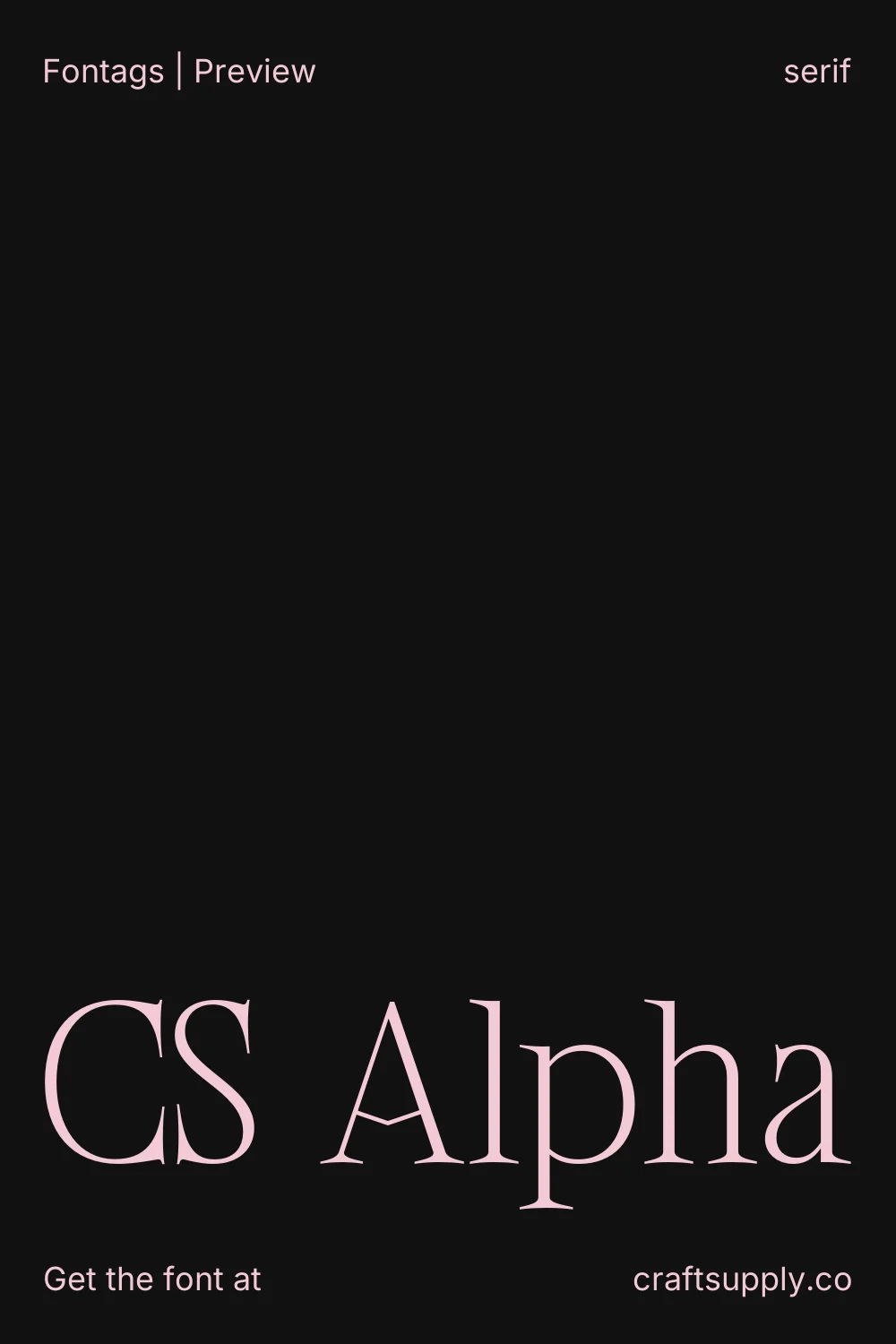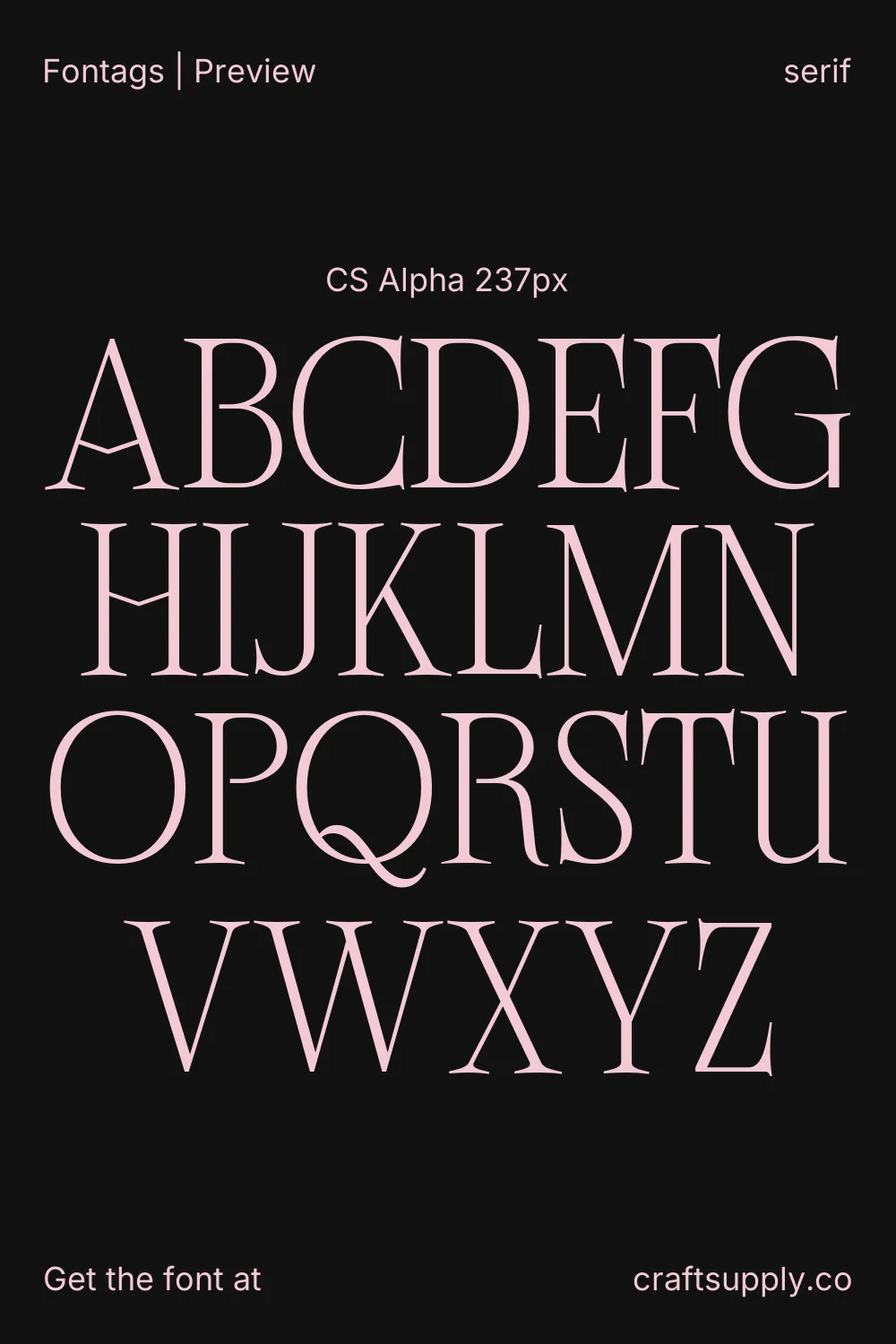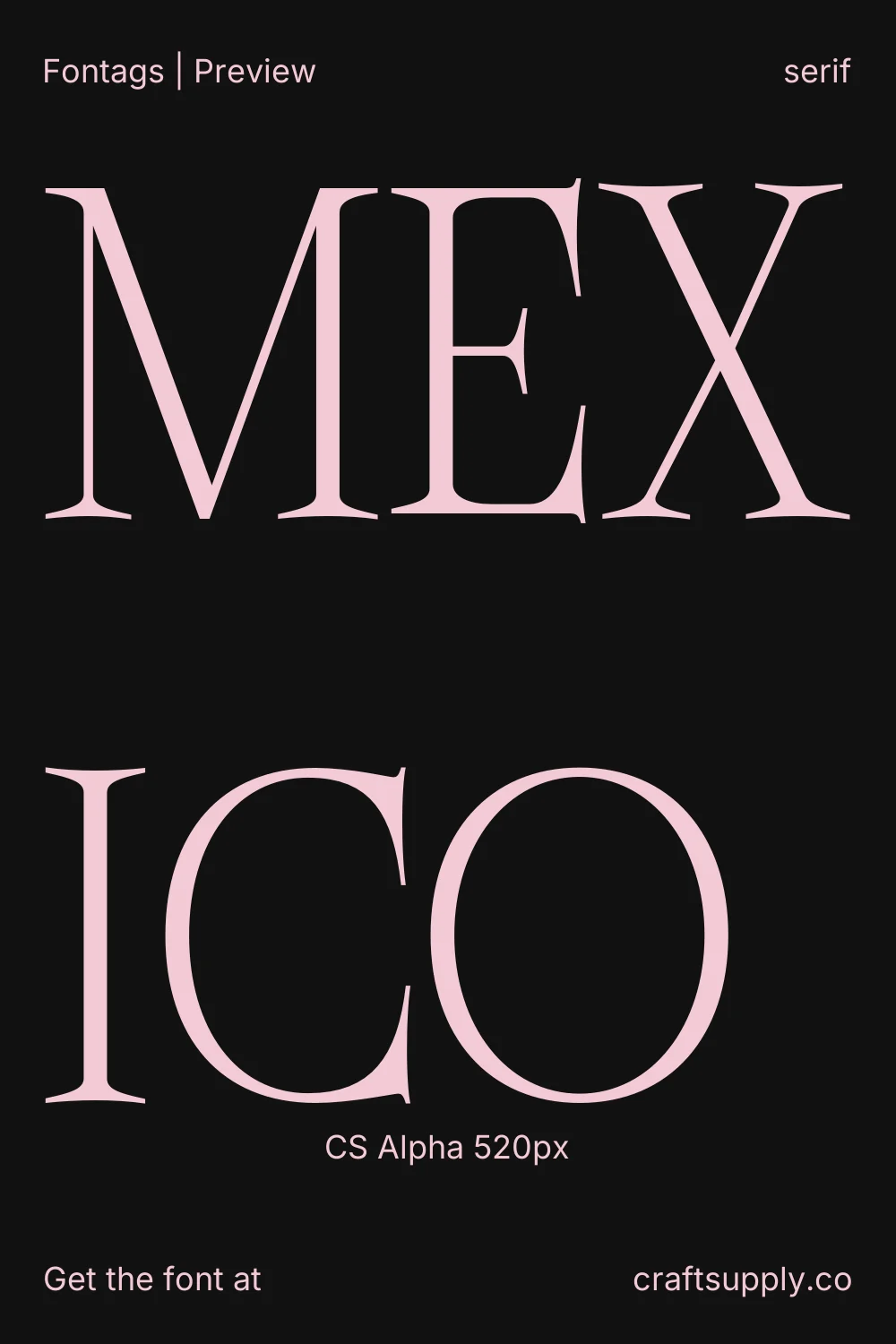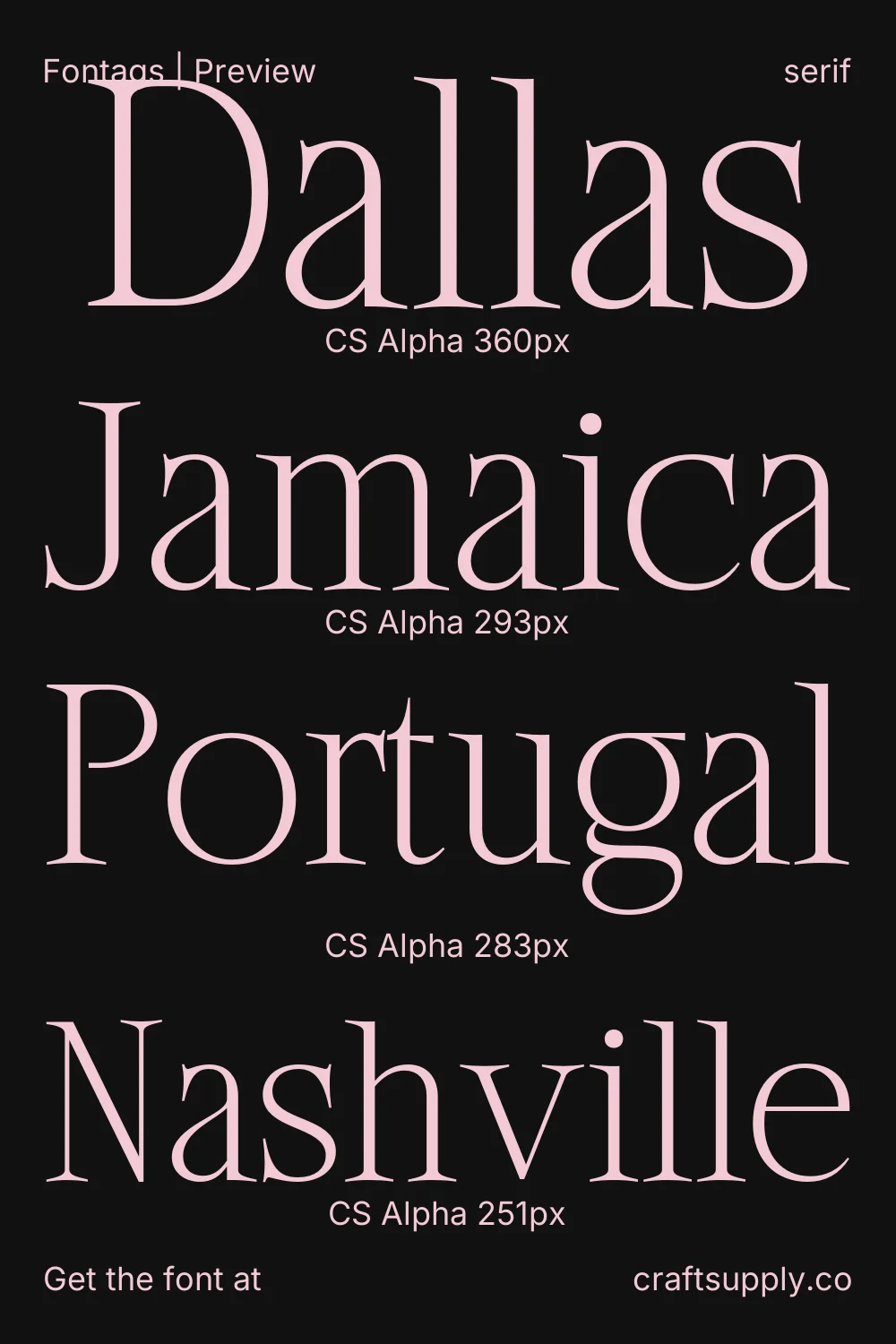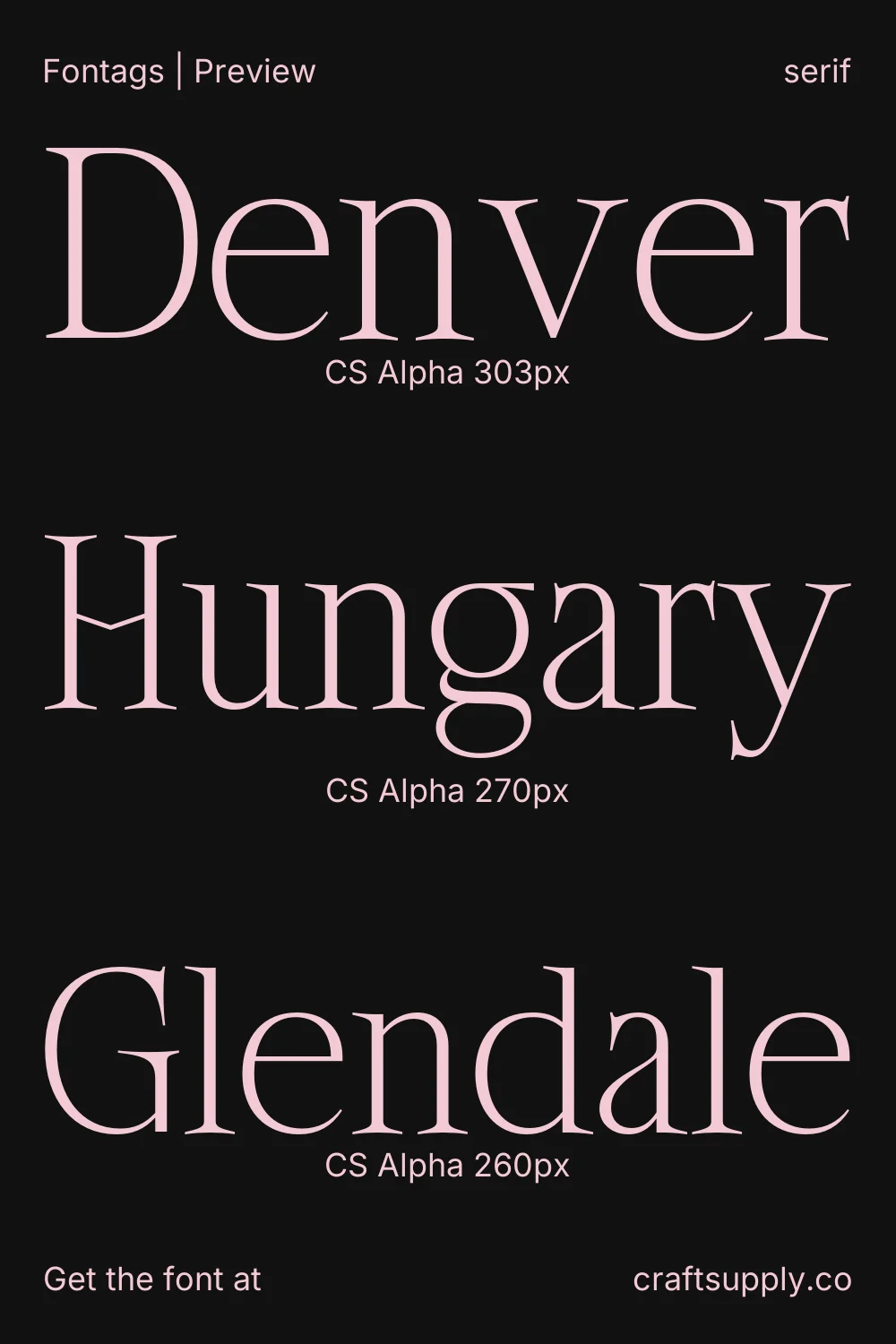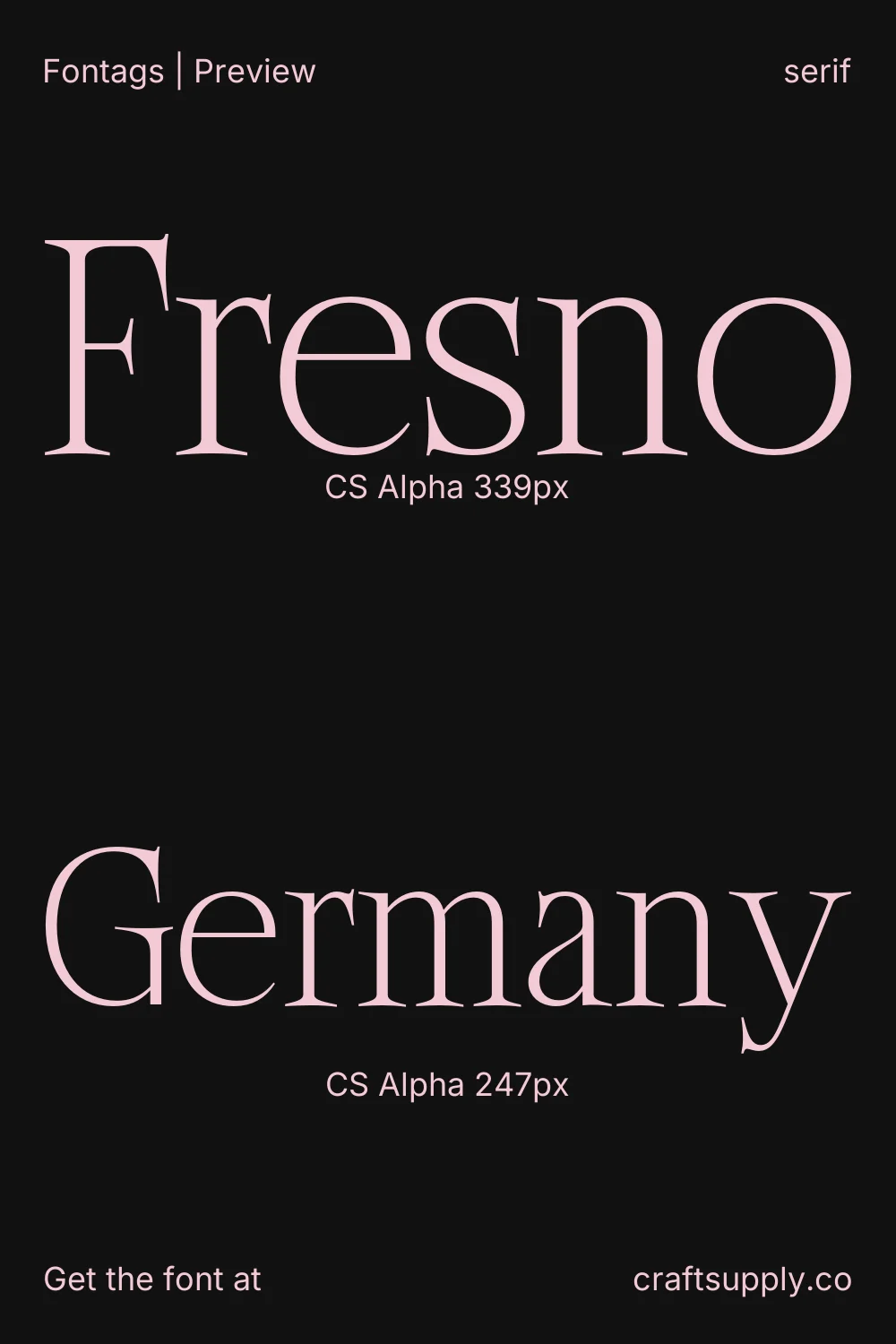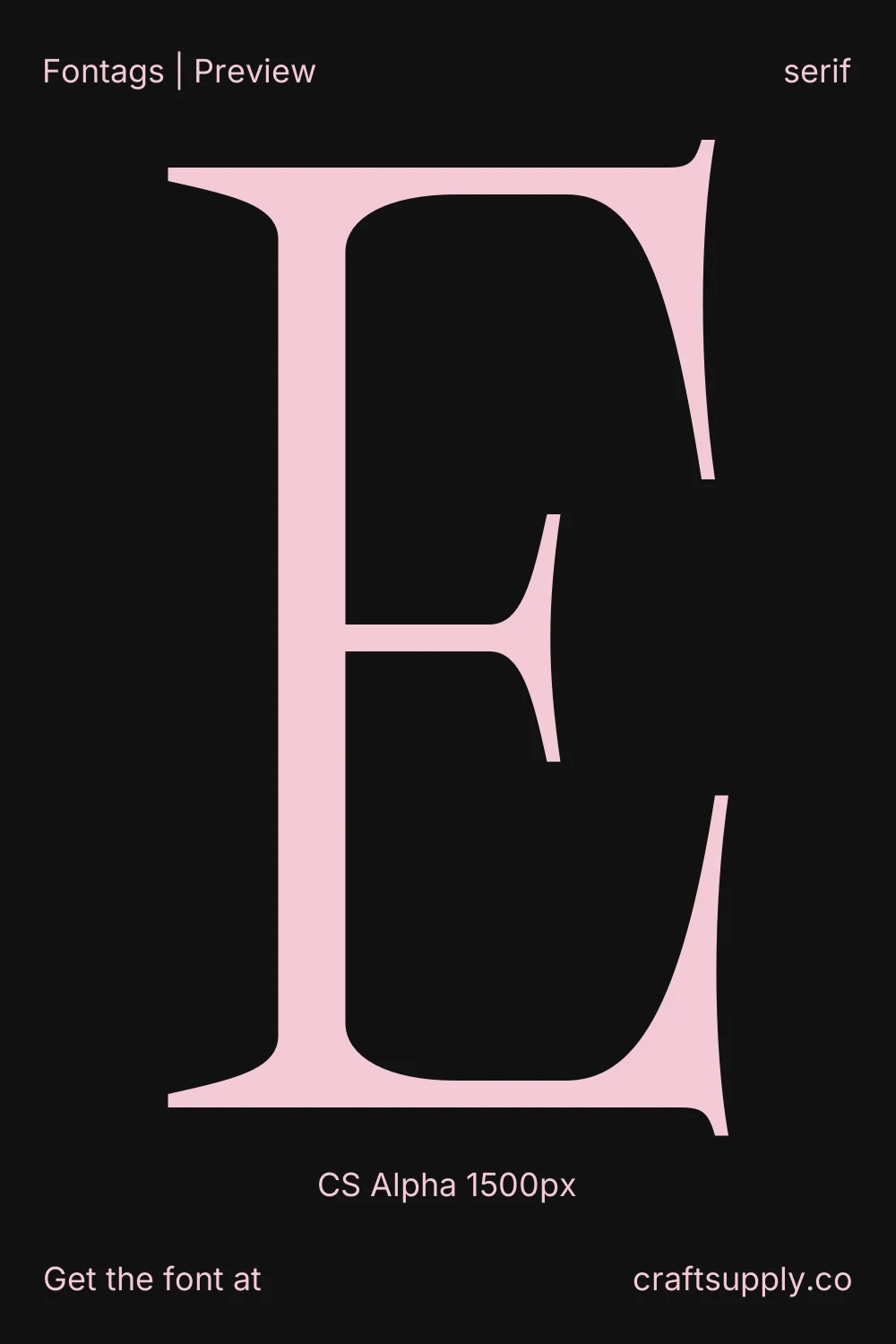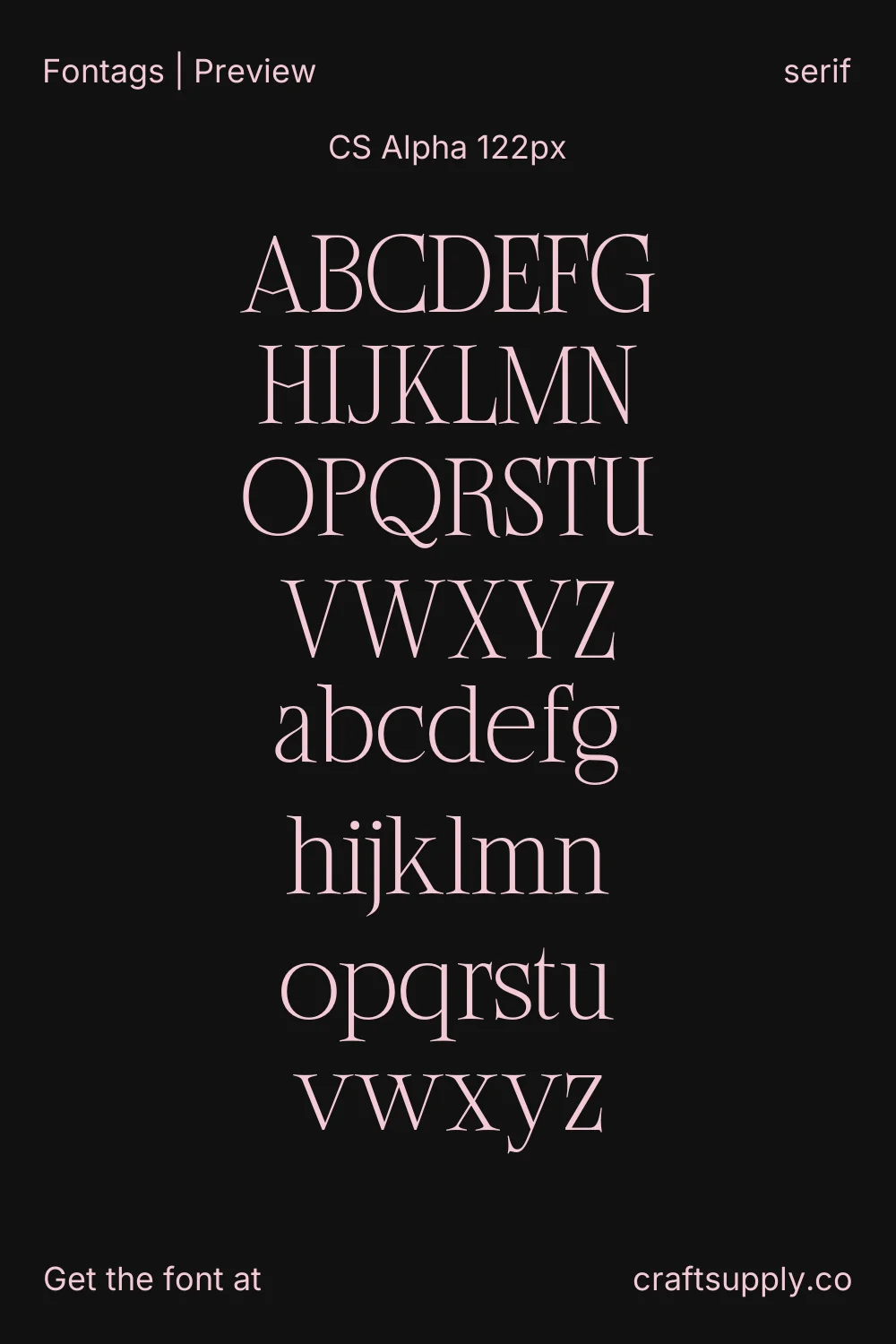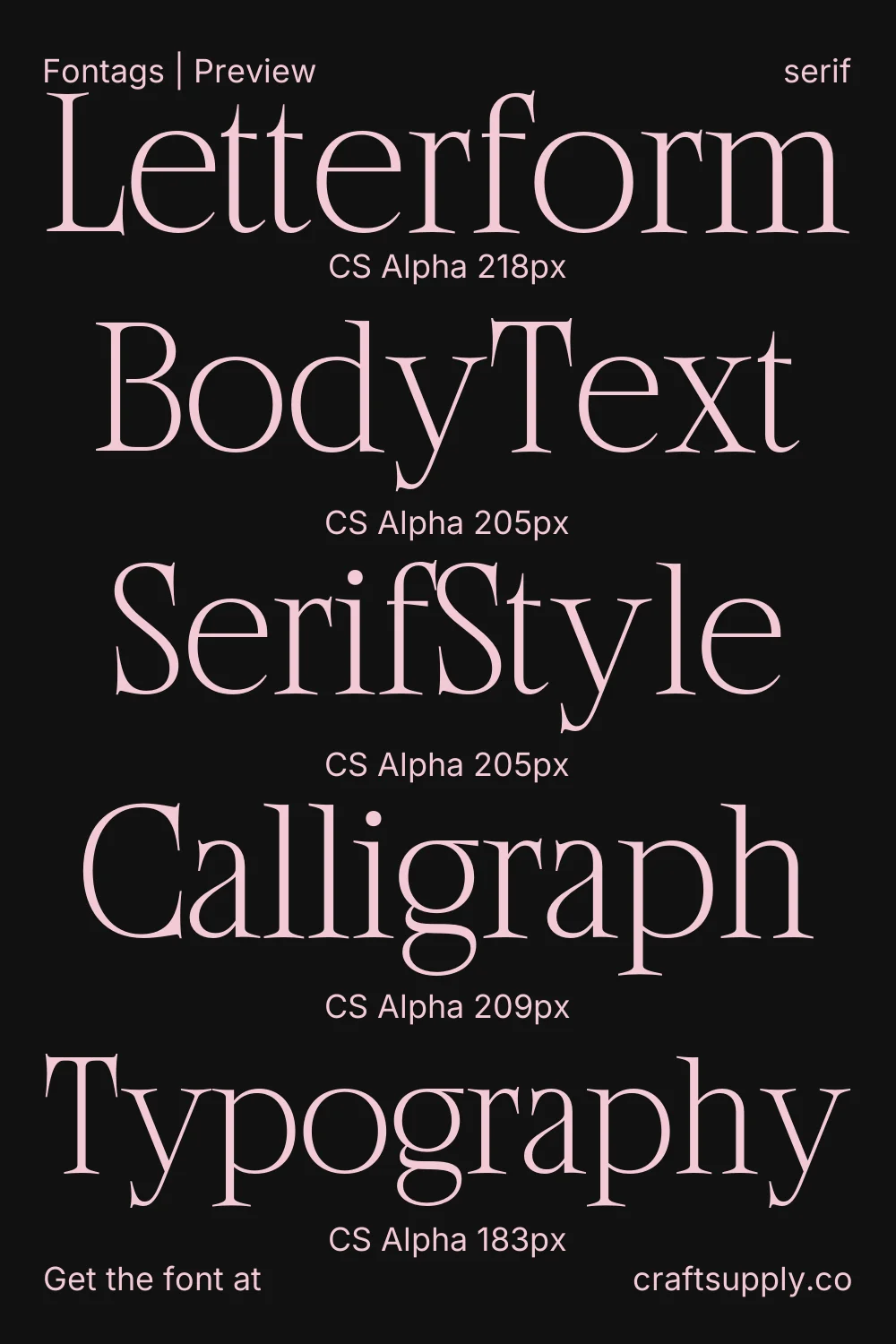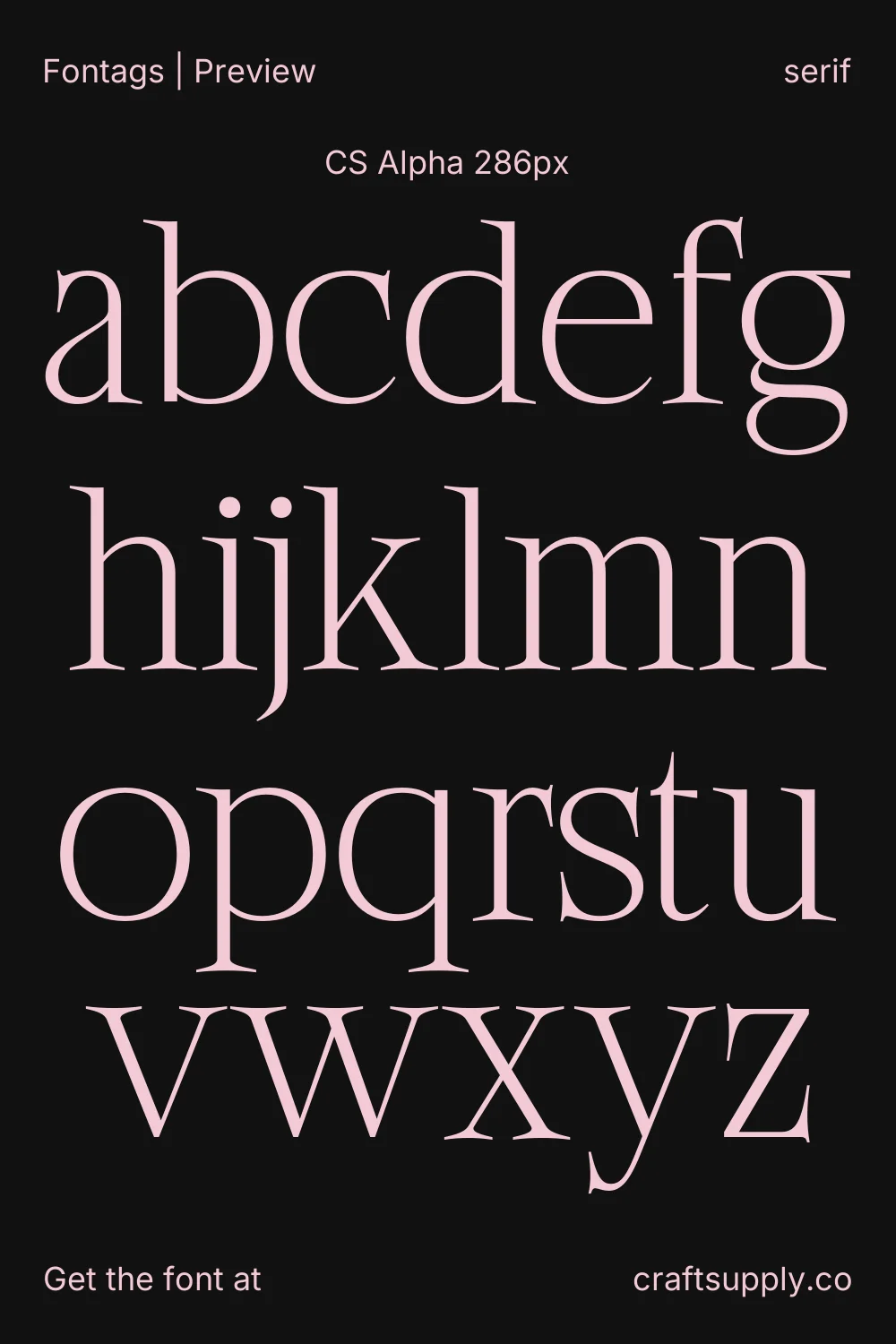
CS Alpha
CS Alpha is a modern classic serif font that combines timeless elegance with contemporary simplicity. Its thin, crisp structure features delicate strokes and refined contrast, creating graceful letterforms that feel polished and highly readable. Ideal for luxury branding, fashion editorials, premium packaging, and creative projects requiring sophisticated typography.